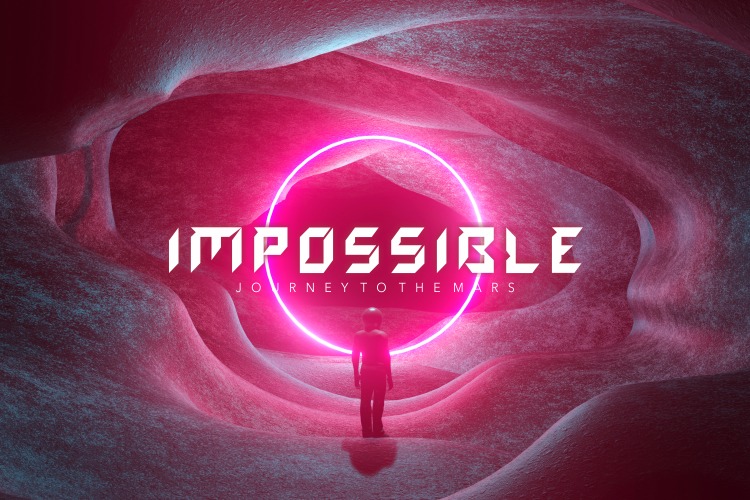
Andromeda Display Font
This is a Futuristic typeface which was created to bring a power, space fantasy and little bit edge in any design. Bold clean letters looks simple and dope . It’s perfectly for movie title, games design, space tshirt, NFT space style and much other,
we make some design examples, so you can see how it works.
Andromeda includes:
Uppercase, lowercase, numbers, punctuations;
Opentype features (Stylistic and Contextual alternates, Standart and Discretionary ligatures)
Multilingual support (Western European characters).